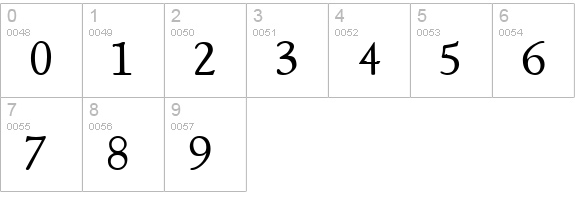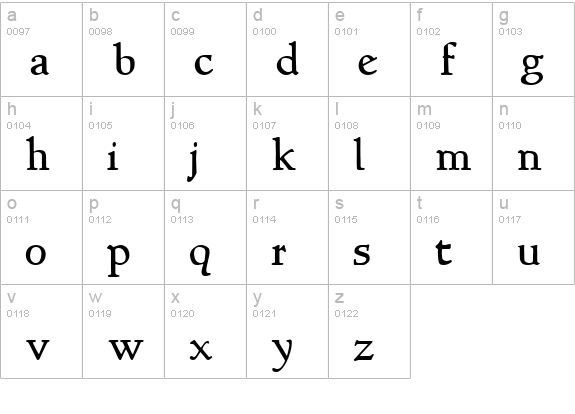
Introducing NewStyle font - a modern and stylish typeface that is perfect for adding a touch of sophistication to your design projects. This versatile font features sleek lines and sharp edges, making it ideal for a wide range of applications, from branding to editorial design. What sets NewStyle font apart is its unique blend of elegance and readability, making it a popular choice among designers looking to make a statement. Whether you are working on a logo, website, or print material, this font is sure to elevate your design to the next level. Best of all, NewStyle font is available for free download at FontsMarket.com. So why wait? Give your projects a fresh and contemporary look with the NewStyle font today!